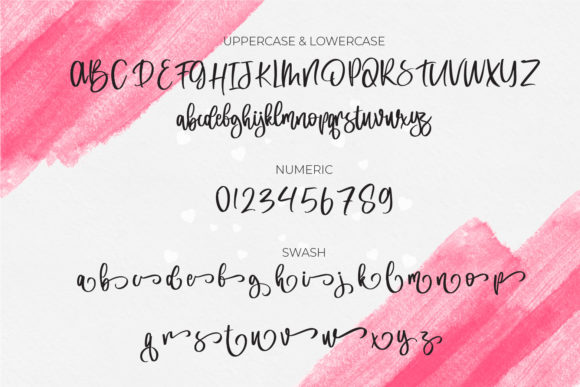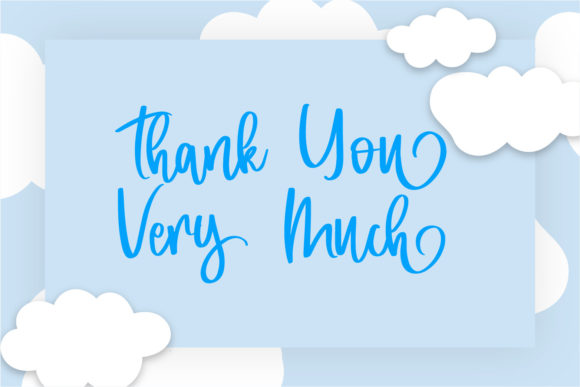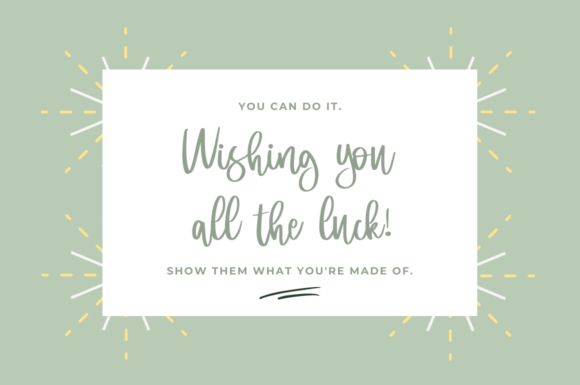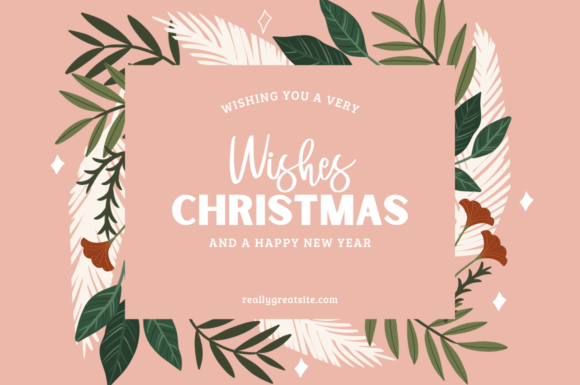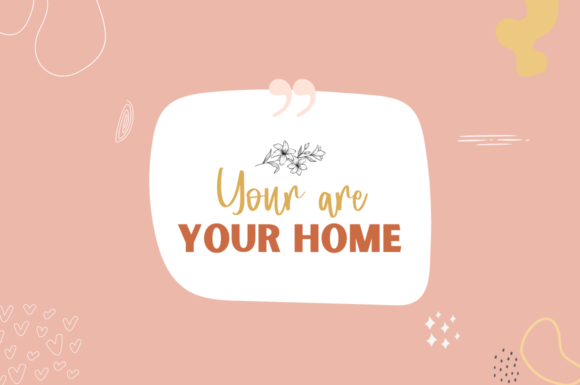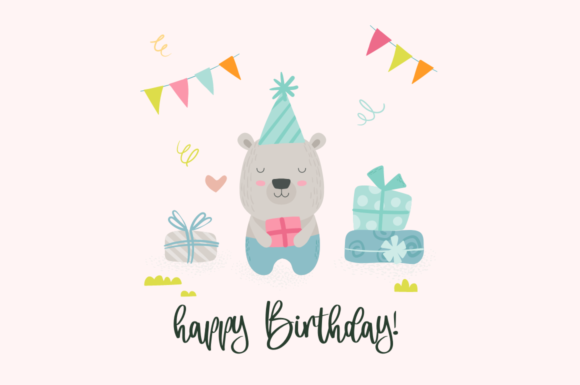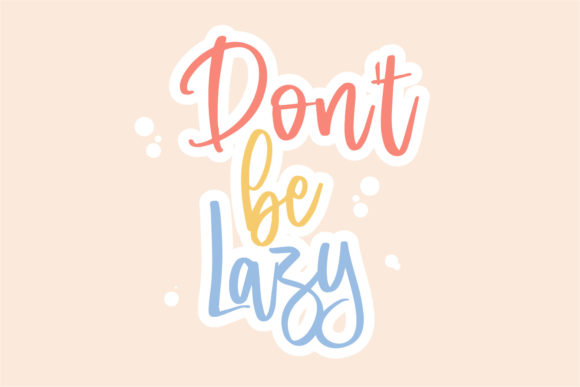
About Britand Font
“Britand” is introduced as a delicate, elegant, and flowing handwritten font, characterized by beautiful and well-balanced characters. This typeface is designed to complement a wide variety of designs, offering versatility and aesthetic appeal. Notably, it is PUA encoded, providing convenient access to all glyphs and swashes.
The use of terms like “delicate, elegant, and flowing” conveys the visual qualities of “Britand,” suggesting a font that combines a refined delicacy with a smooth and graceful flow. These characteristics contribute to an overall aesthetic that is both pleasing and adaptable.
The mention of “beautiful and well-balanced characters” emphasizes the font’s versatility, indicating that it is thoughtfully crafted to harmonize with a diverse range of design contexts. The balanced characters suggest that “Britand” can maintain a sense of equilibrium and visual appeal across different applications.
The note about PUA encoding adds a practical dimension to the description. This encoding feature allows users to easily access all the glyphs and swashes, enhancing the font’s usability. This convenience is particularly valuable for designers looking for a seamless and efficient experience in incorporating the font into their projects.
In summary, “Britand” is presented as a delicate, elegant, and flowing handwritten font with beautiful and well-balanced characters. Its versatility and PUA encoding make it a valuable asset for designers seeking a font that effortlessly complements a wide array of design projects.